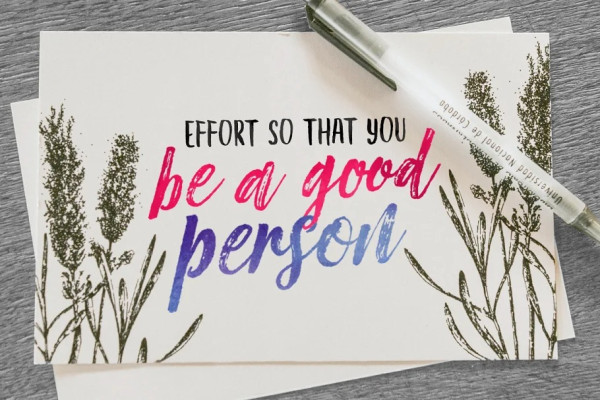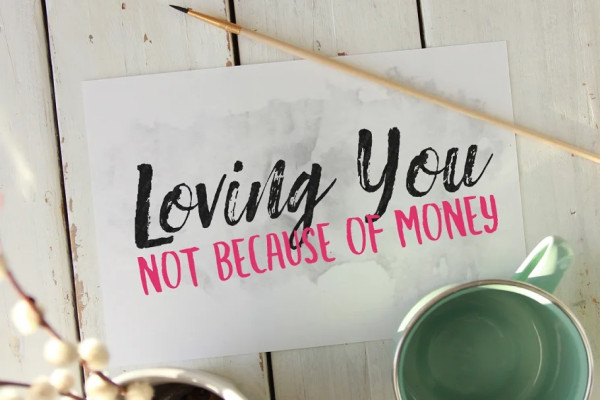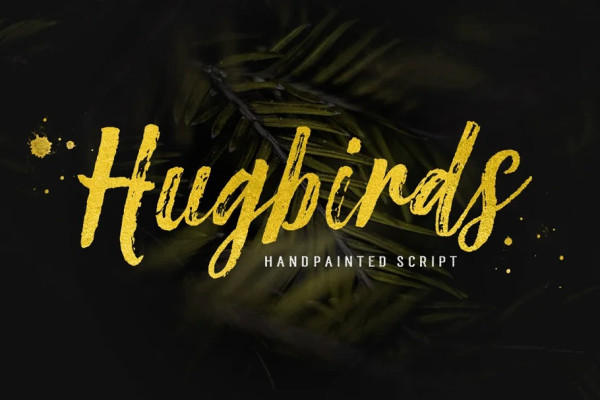
Hugbirds Brush Font
Hugbirds Brush Font, with the kind of modern hand scratches, I hope you are interested in this font, if you want to use for your work this font can be used easily and simply because there are a lot of features in it to contain a complete set of letters lower and uppercase letters, assorted punctuation, numbers, and multilingual support. font also contains several ligatures and alternate style Stylistic.